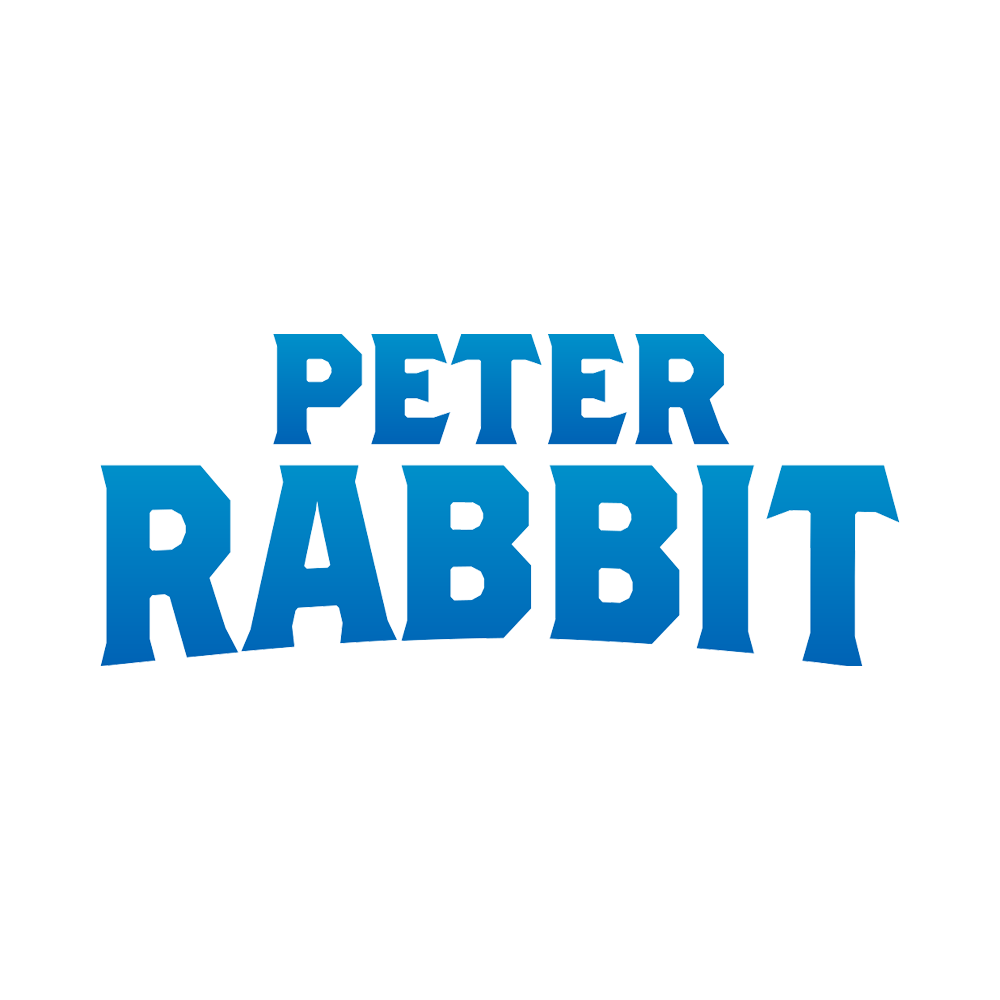
Peter Rabbit Font
AnimationPeter Rabbit is a 2018 animated film about the mischievous adventures of a rebellious rabbit trying to sneak into a farmer's garden. The film is based on the popular children's book series by Beatrix Potter.
The Peter Rabbit title in the poster uses a font called Brothers Bold. Brothers, a typeface created by John Downer in 1999, was influenced by a colorful chromolithographed letterhead created at the turn of the 20th century for the COLE BROTHERS touring productions. The slogan text “RASCAL REBEL RABBIT” is written in Futura Bold.